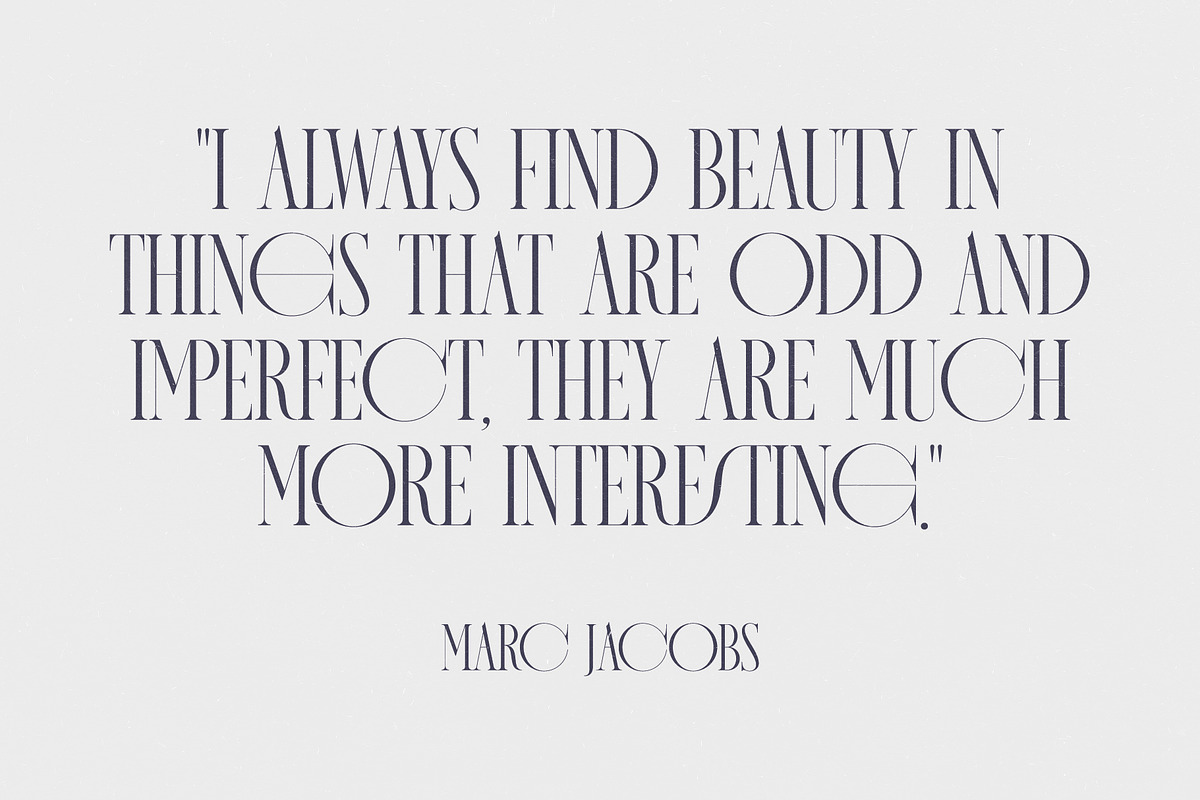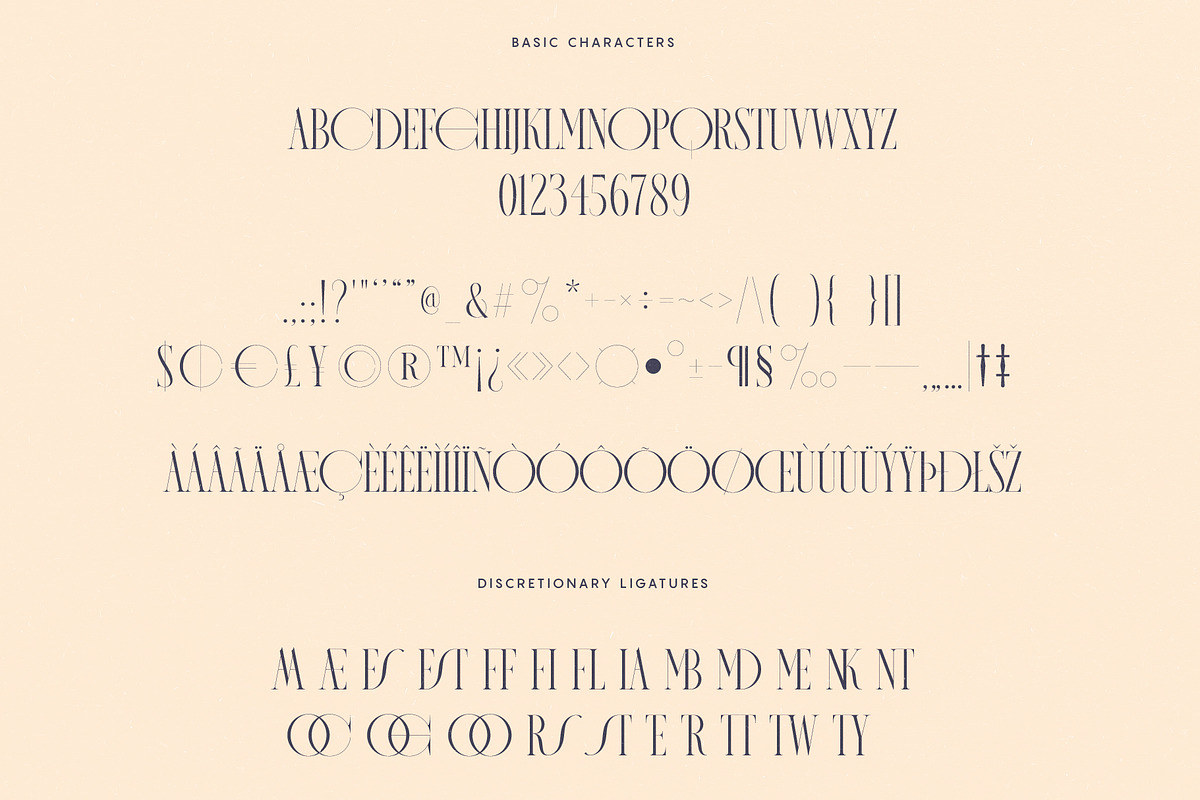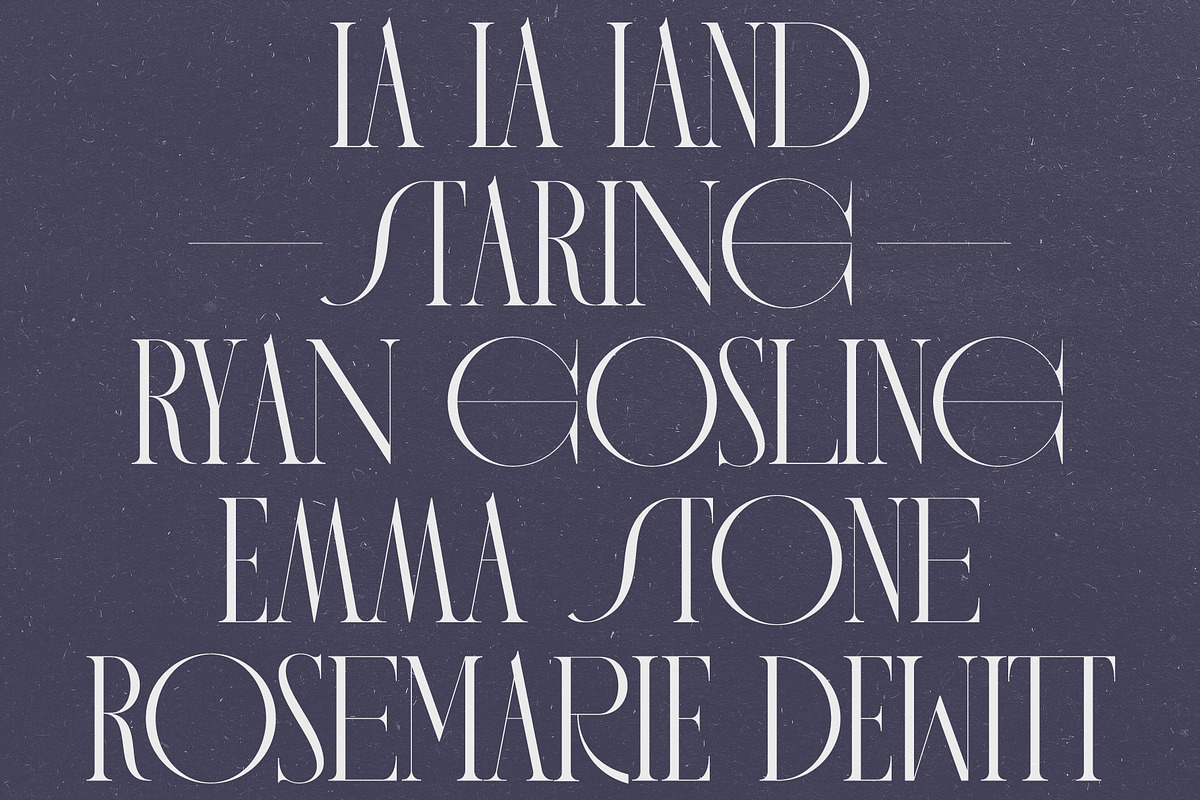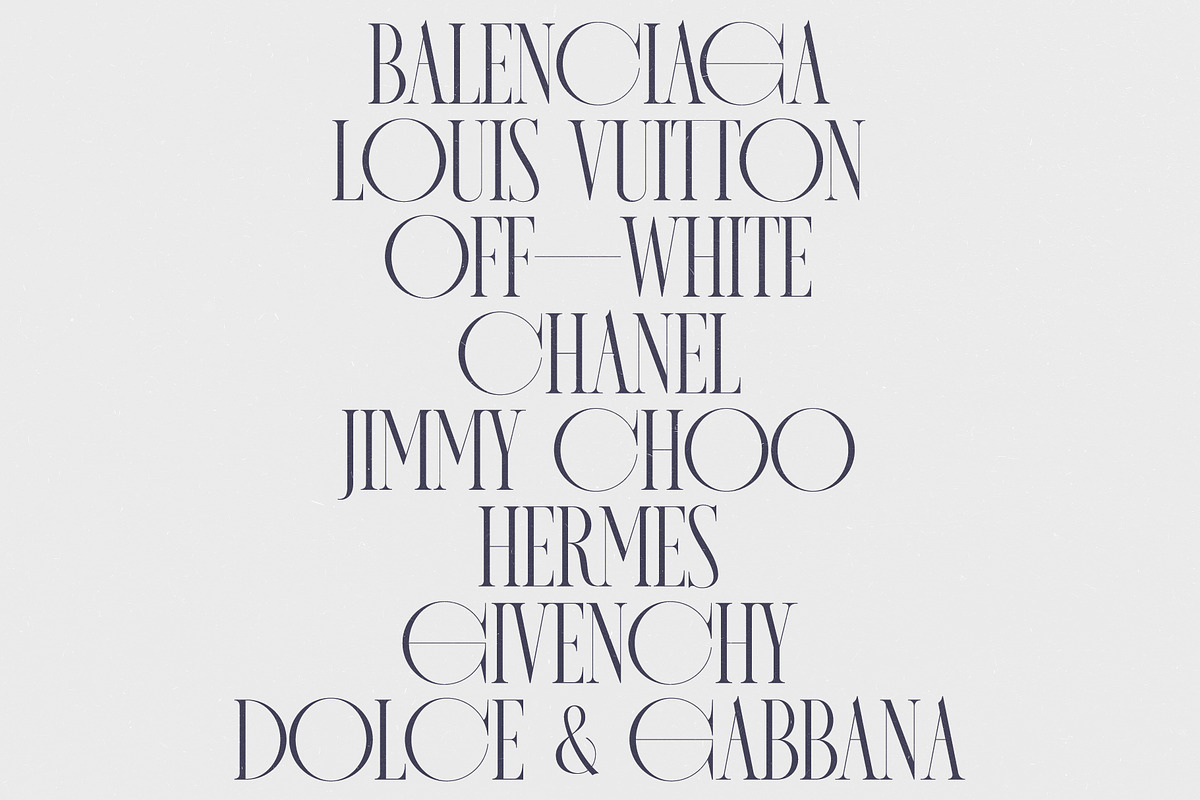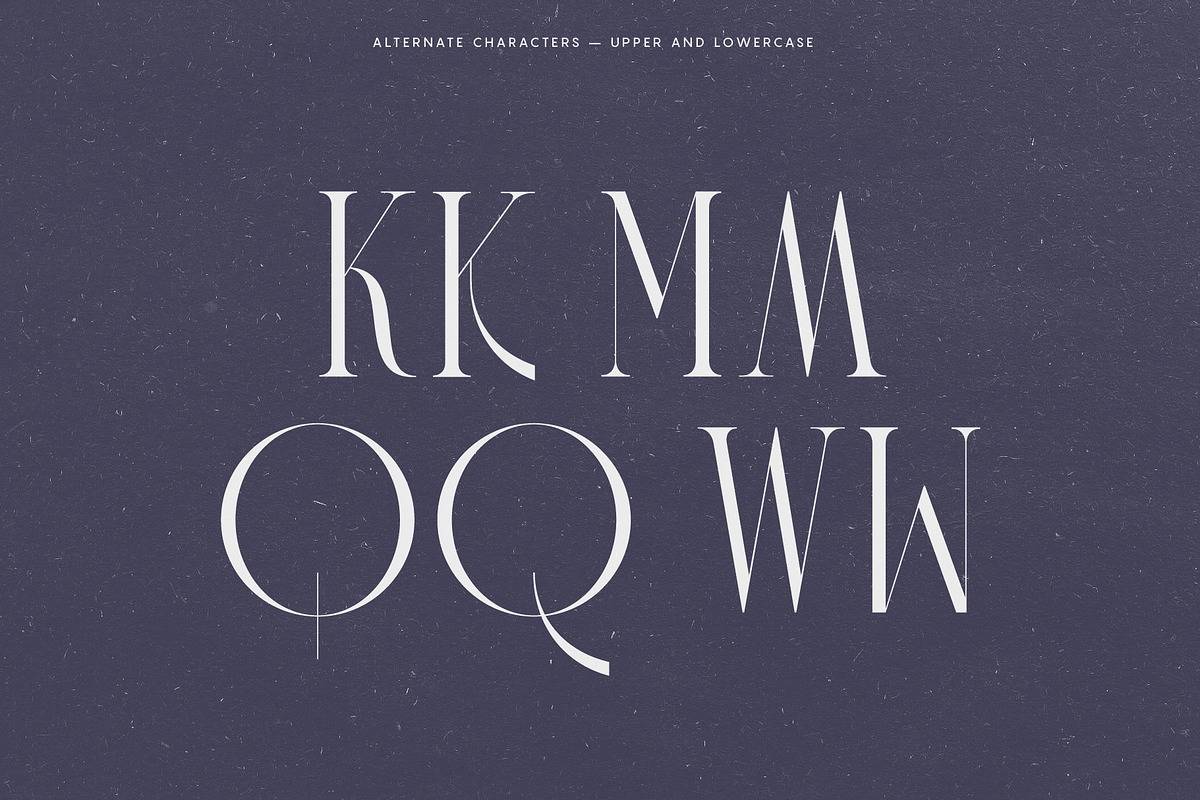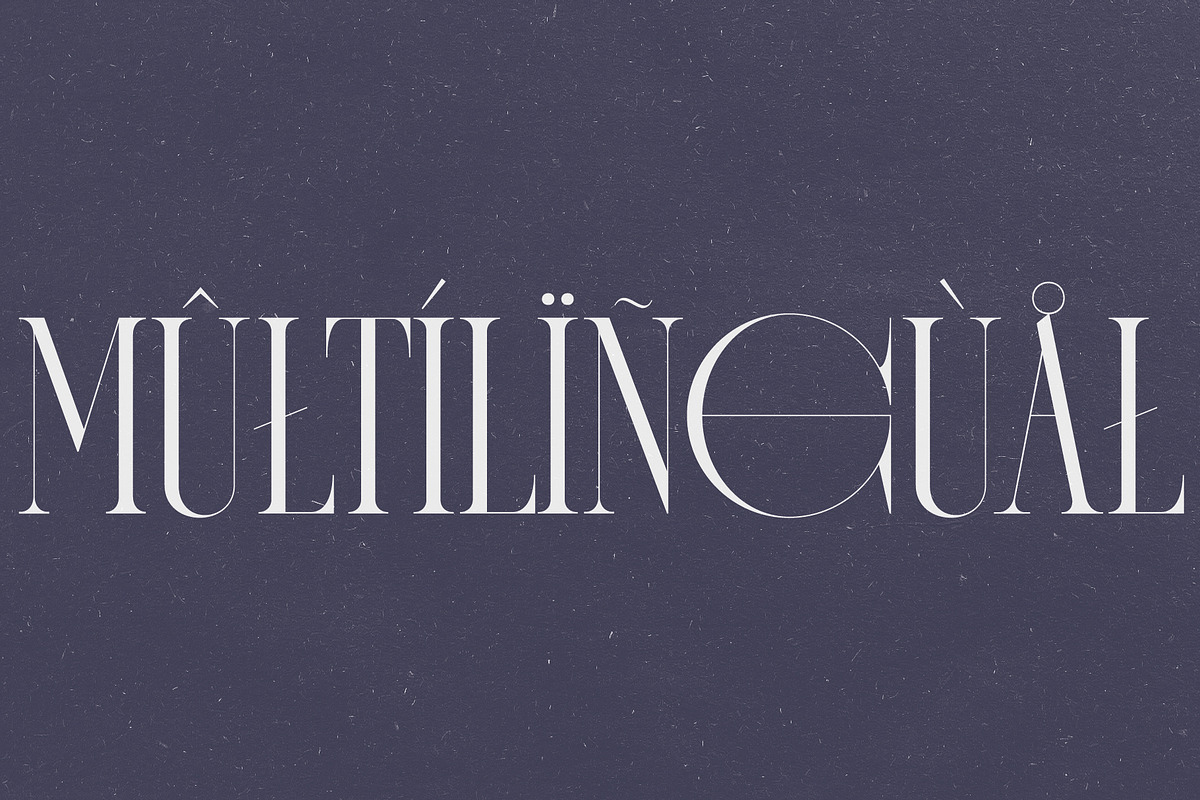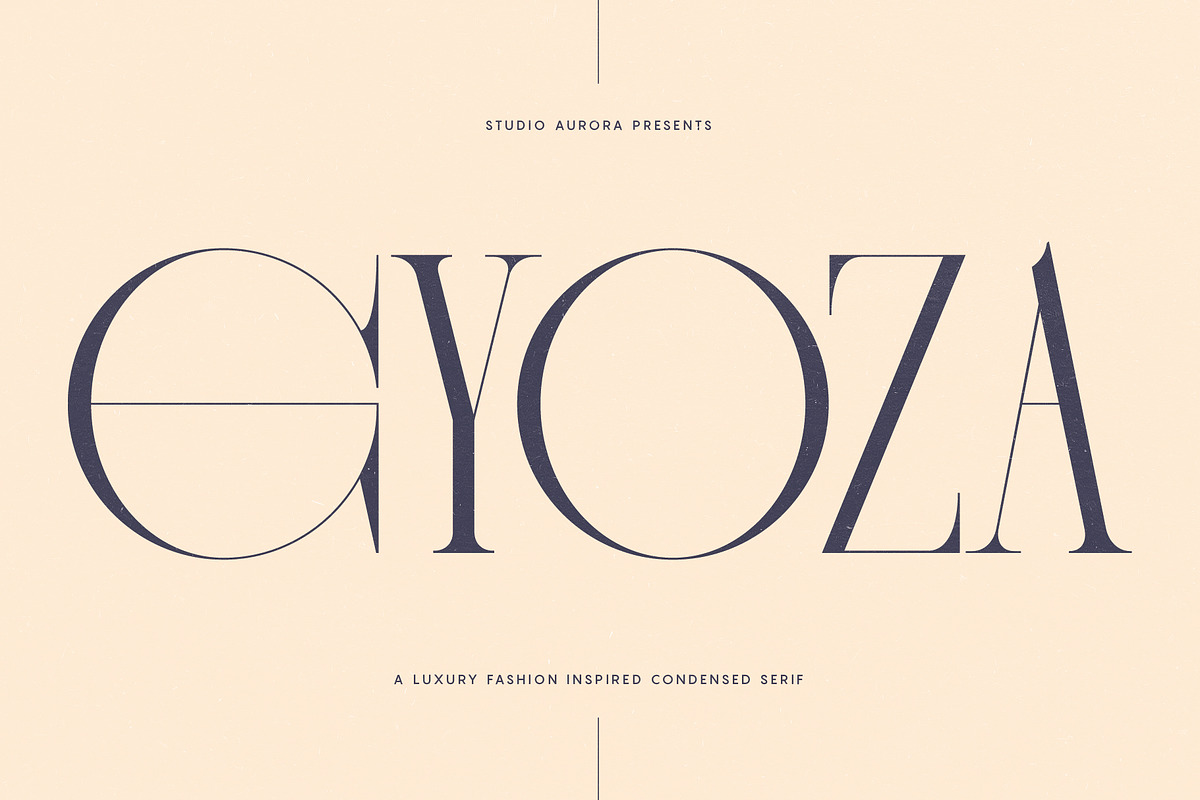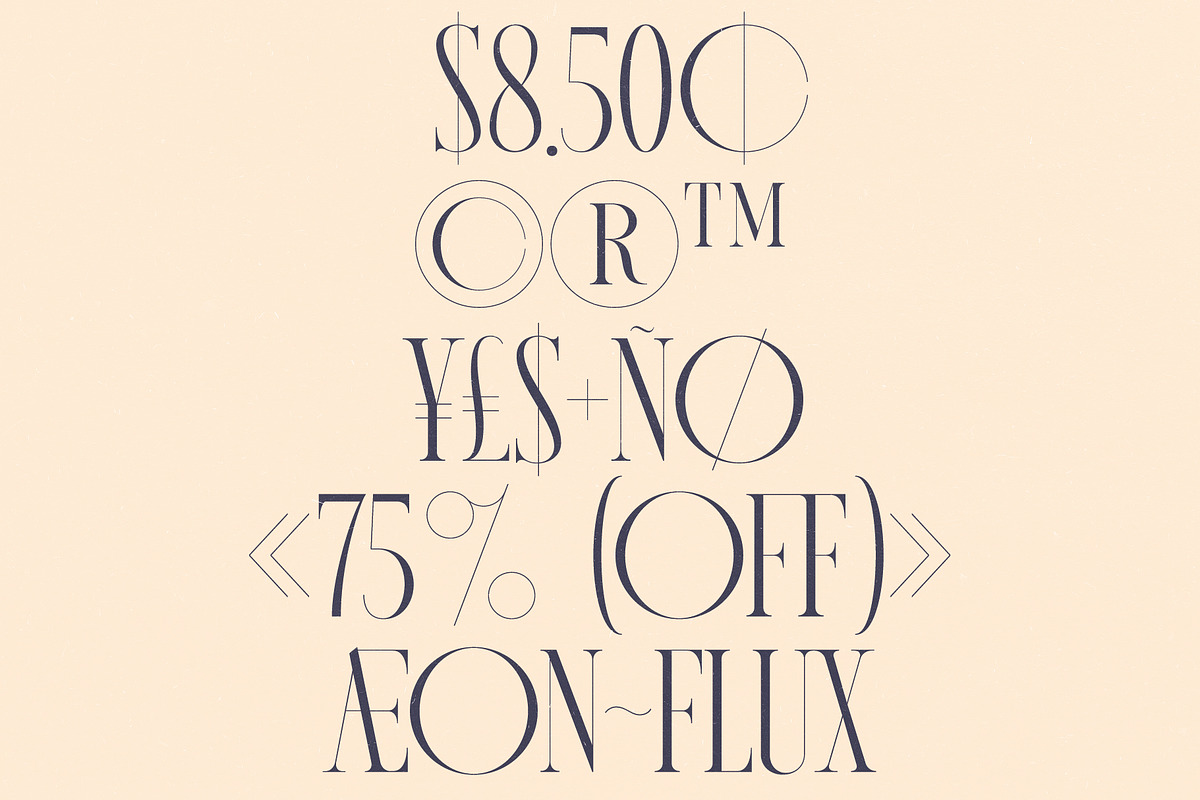
Gyoza Luxury Fashion Condensed Serif
Introducing our new typeface, Gyoza - A contemporary, luxury, fashion-inspired condensed serif, that comes with uppercase & lowercase alternates and full of ligatures perfect for creating variety in your designs.
This is a display serif font that we recommend using in the following types of work; magazines (titles and layouts), logos and branding, invitations, quotes, blog headers, posters, advertising and body copy.
Language Support: Afrikaans, Albanian, Catalan, Danish, Dutch, English, French, German, Italian Norwegian, Portuguese, Spanish, Swedish and Zulu.
- Uppercase and lowercase glyphs (for alternate characters)
- Unique ligature glyphs